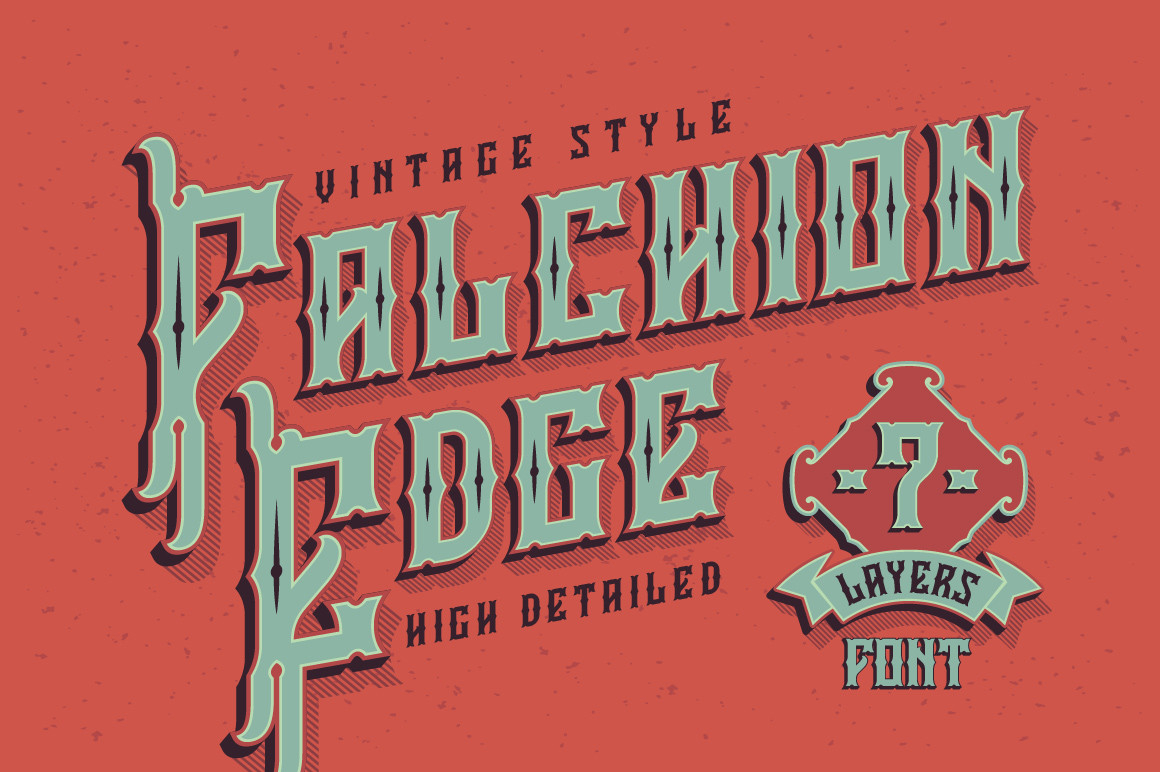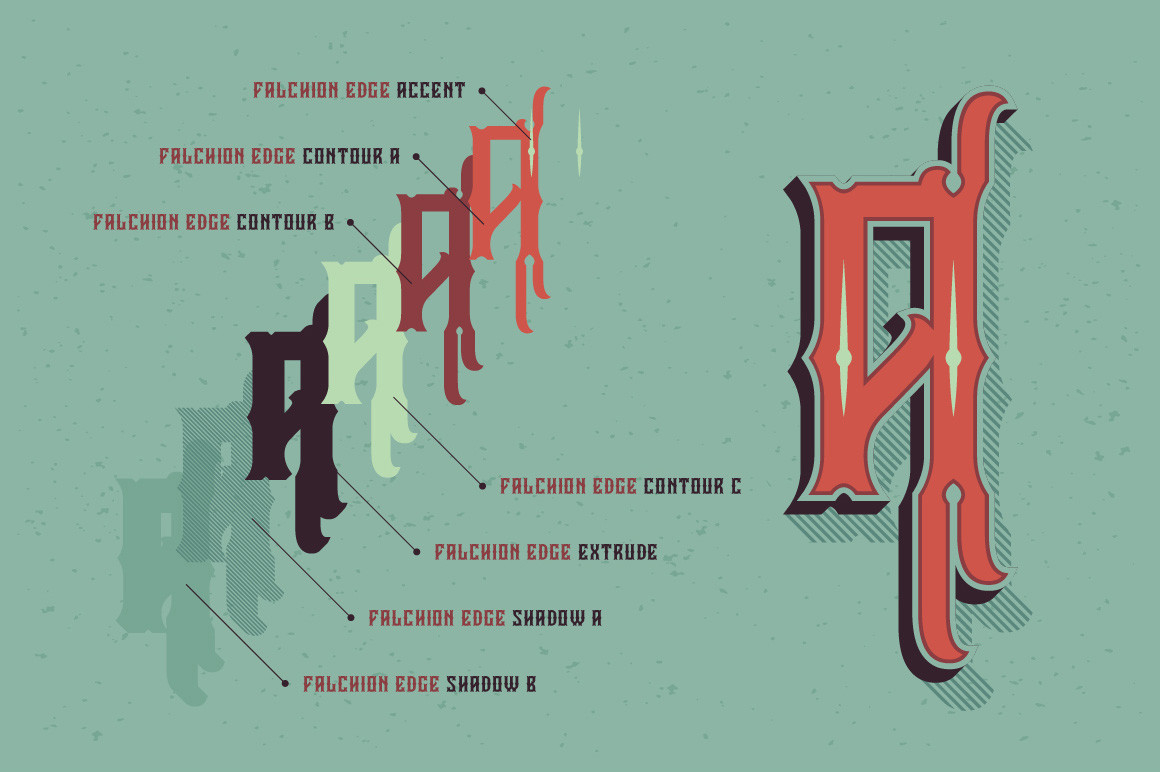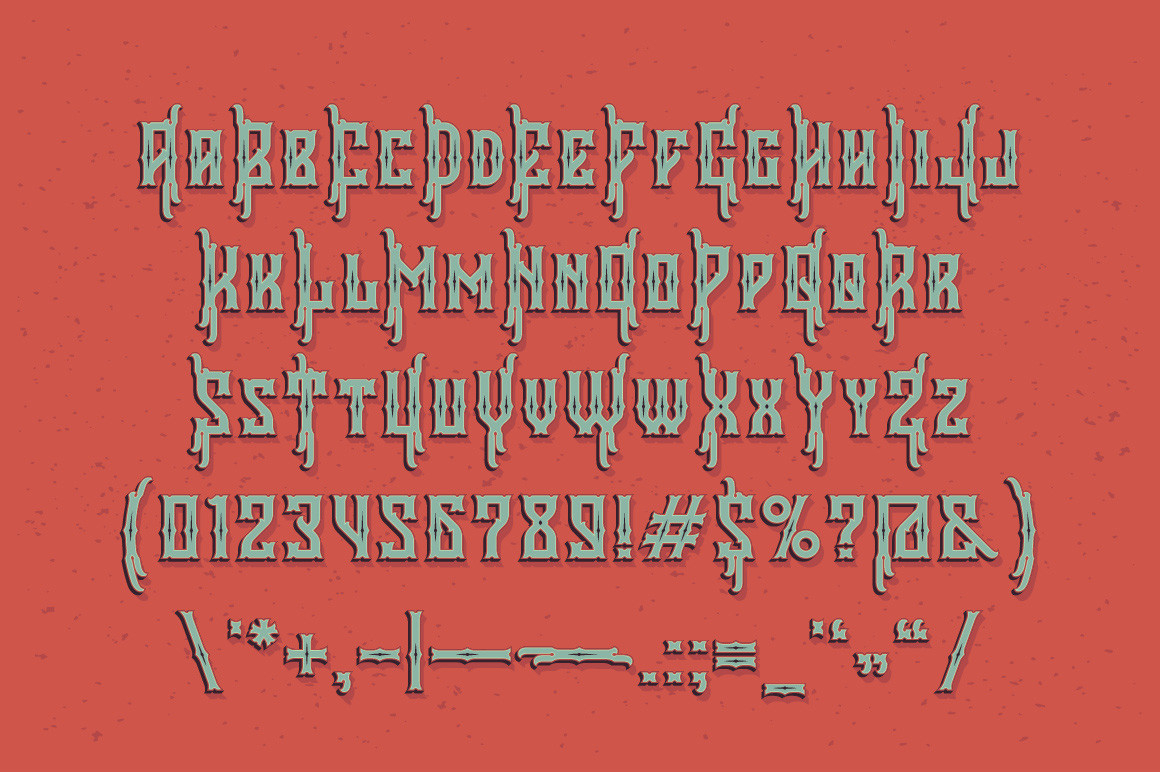
About Falchion Edge Font
Falchion Edge is a highly detailed, assertive and vintage styled blackletter font. This font is imposing and features uniquely shaped letters, and as a result, it will easily match a wide range of creations that require a distinct touch.